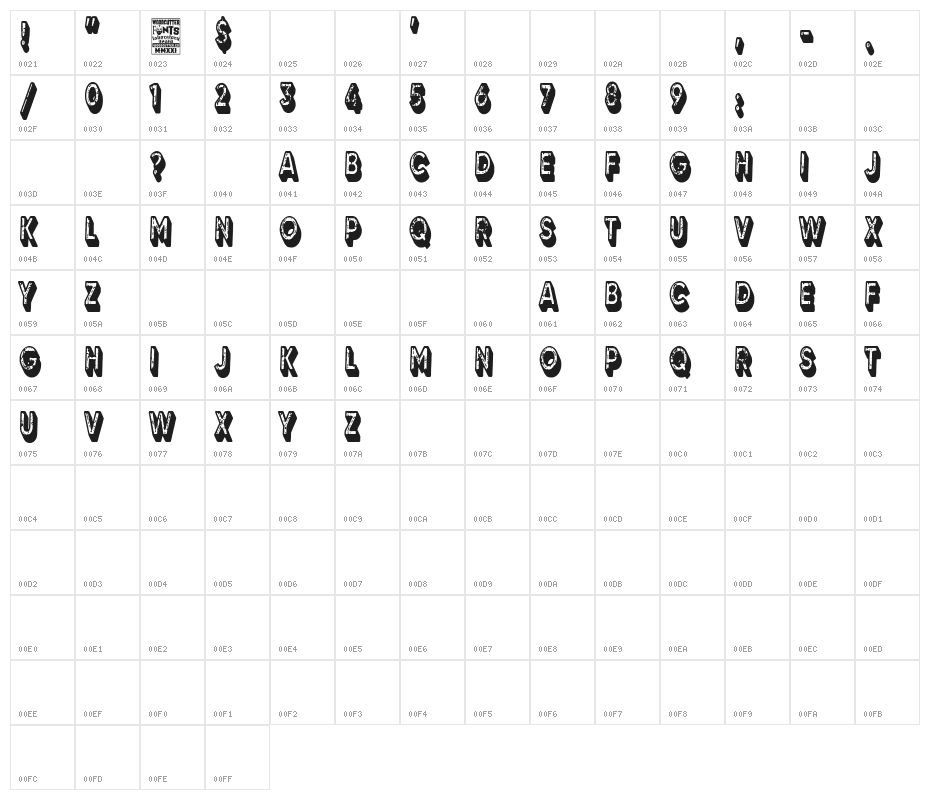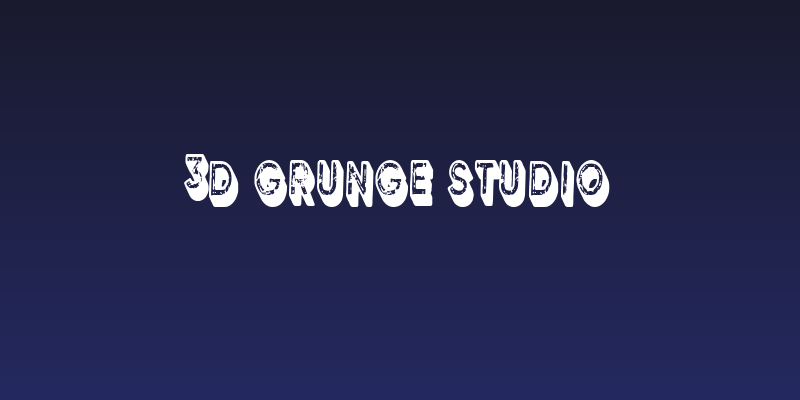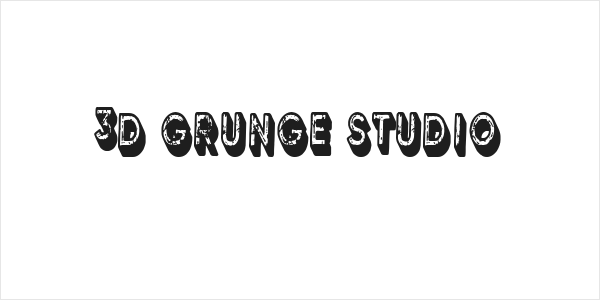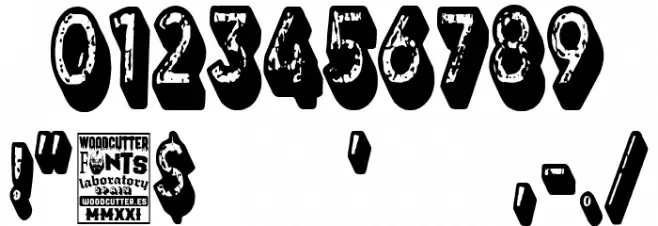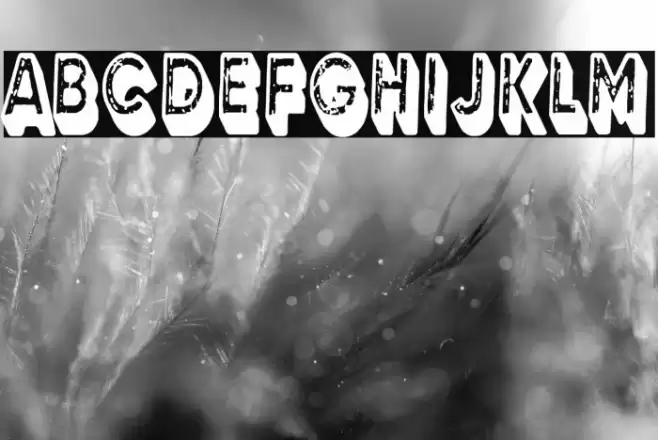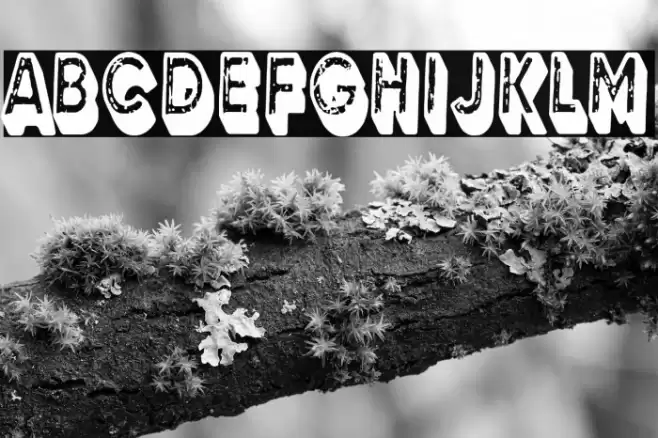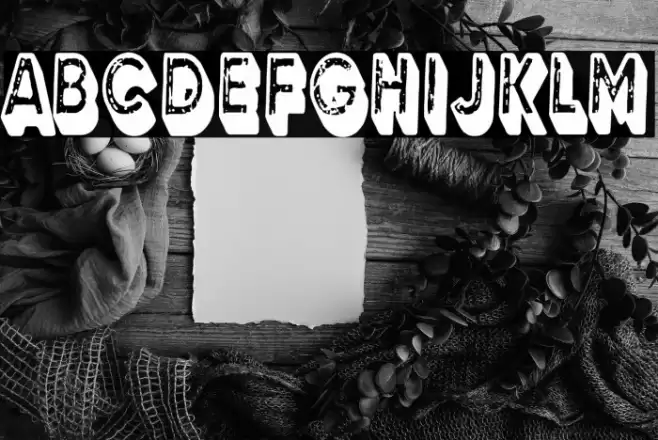
3D Grunge Studio Font
3D Grunge Studio Description
This font features a bold, three-dimensional grunge style with a distressed texture that gives it a rugged and edgy appearance. The characters are blocky and robust, with a shadow effect that adds depth and dimension. The texture within each character appears worn and weathered, creating a vintage and industrial feel. This font is highly decorative, making it ideal for projects that require a strong visual impact. The uppercase and lowercase letters maintain a consistent style, while the numbers and special characters complement the overall design. The font's unique aesthetic is perfect for creating eye-catching headlines, posters, and branding materials that need a bold statement.
| Overall Style | Grunge, Vintage, Industrial |
| Use Case | Headlines, Posters, Branding |
| Proposed Projects | Ideal for posters, album covers, branding, and any project needing a bold, edgy look. |